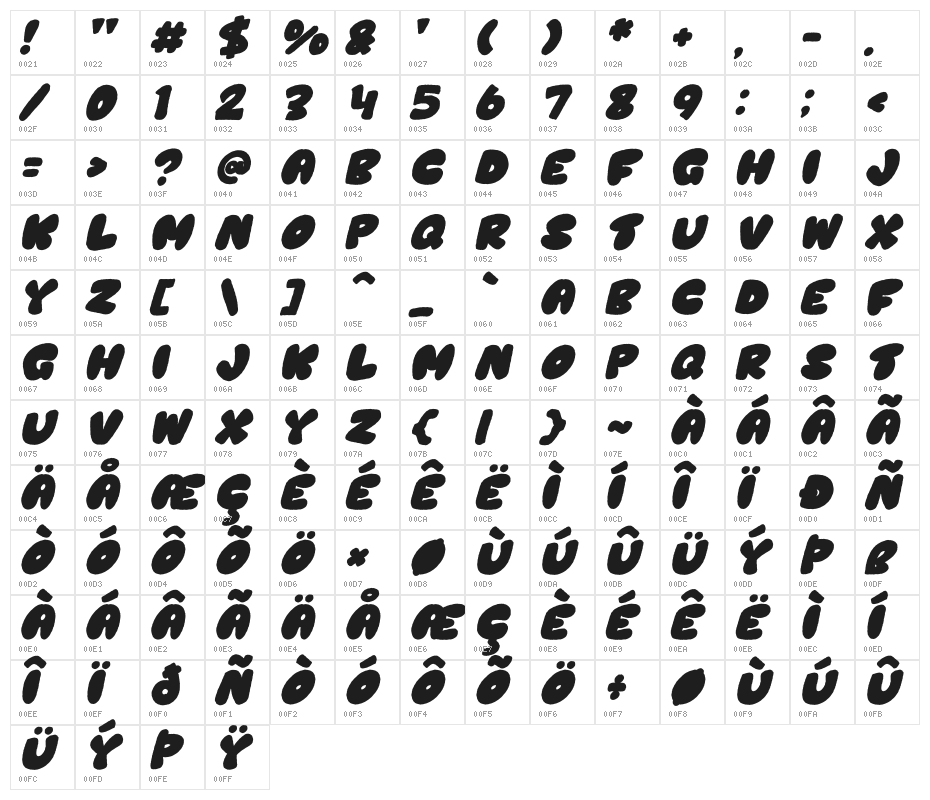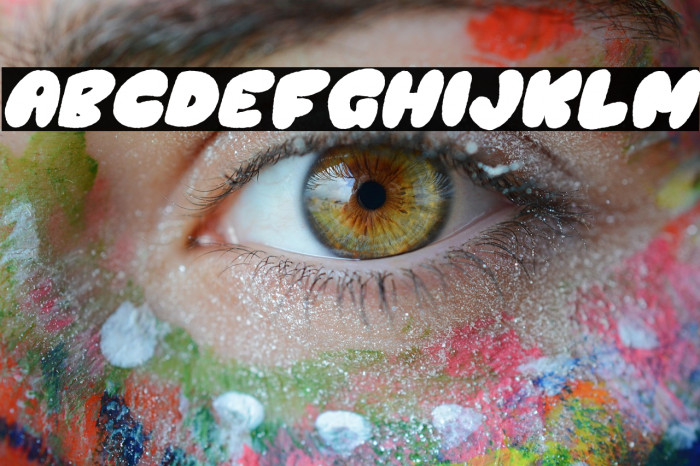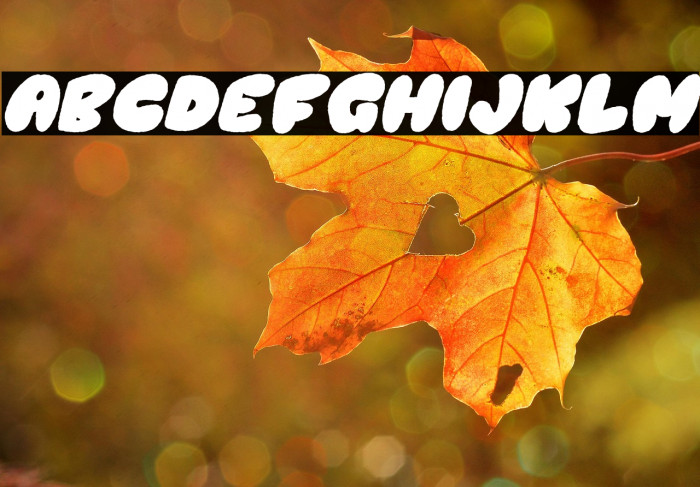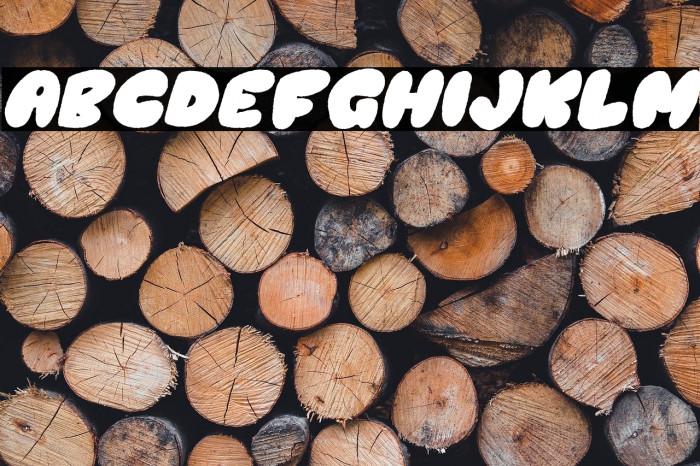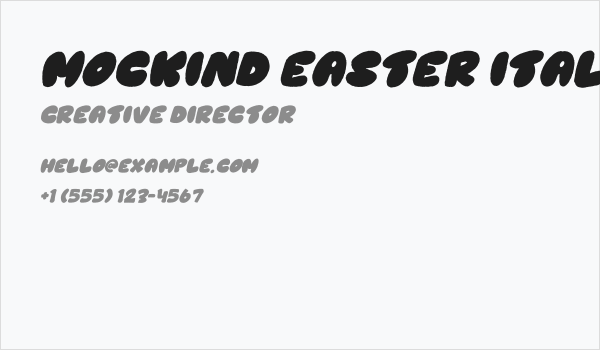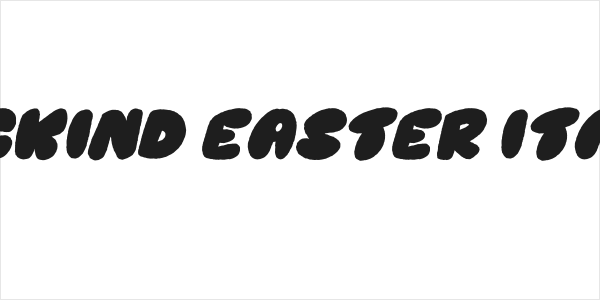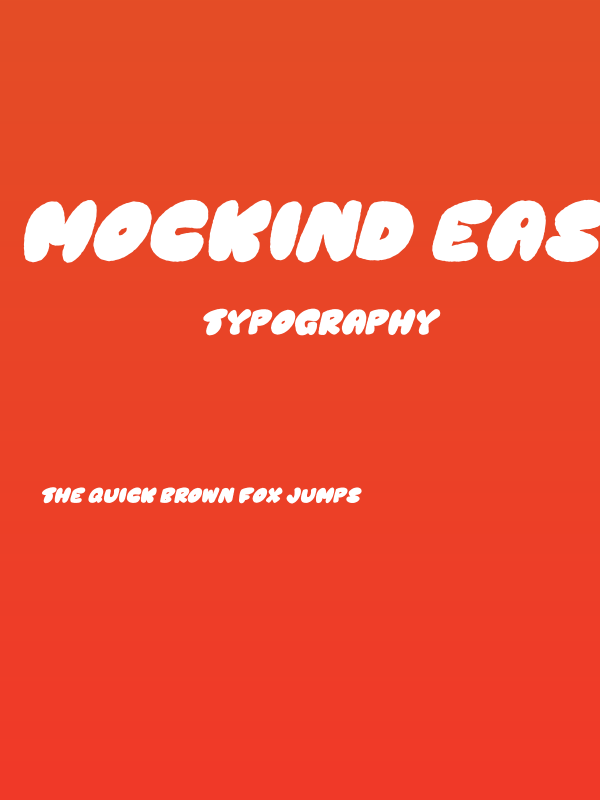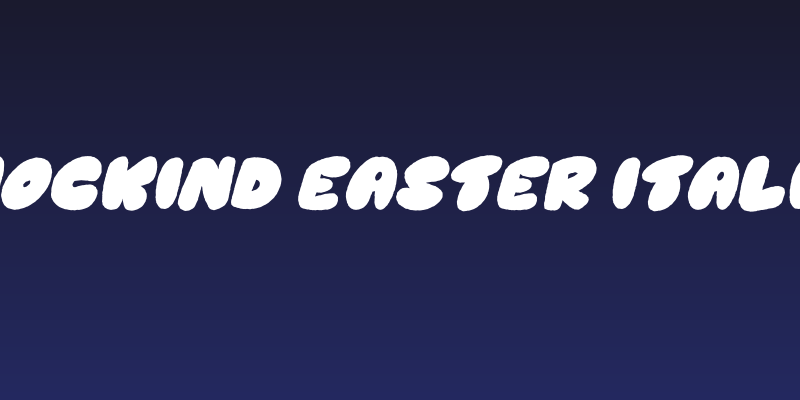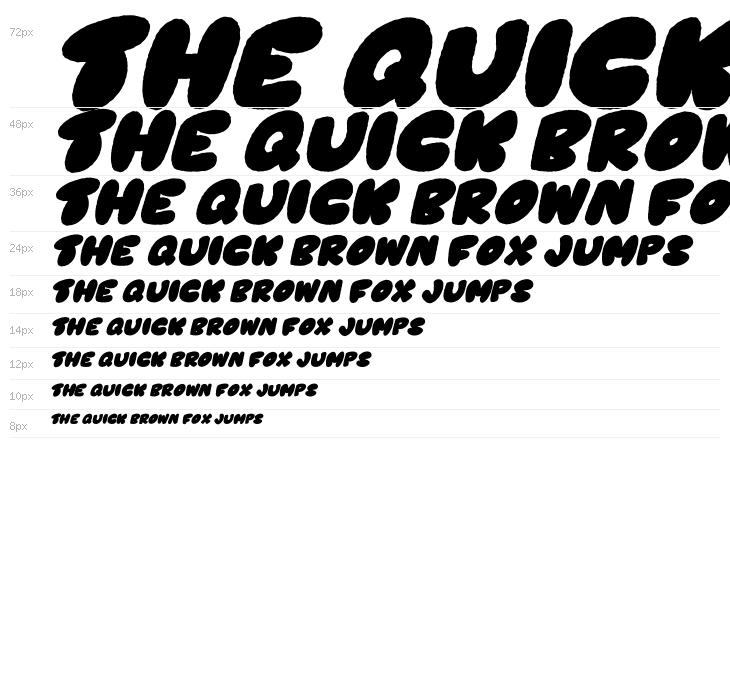
Mockind Easter Italic Font
Mockind Easter Italic Description
This font features a bold and playful style with rounded edges and a slightly italicized slant, giving it a dynamic and lively appearance. The characters are thick and uniform, creating a strong visual impact. The font maintains a consistent weight throughout, emphasizing its boldness. The rounded and smooth curves of the letters contribute to its friendly and approachable feel, making it suitable for casual and informal designs. The numbers and special characters follow the same stylistic approach, ensuring cohesion across all elements.
| Proposed Projects | Ideal for children's books, playful branding, event posters, and social media graphics. |